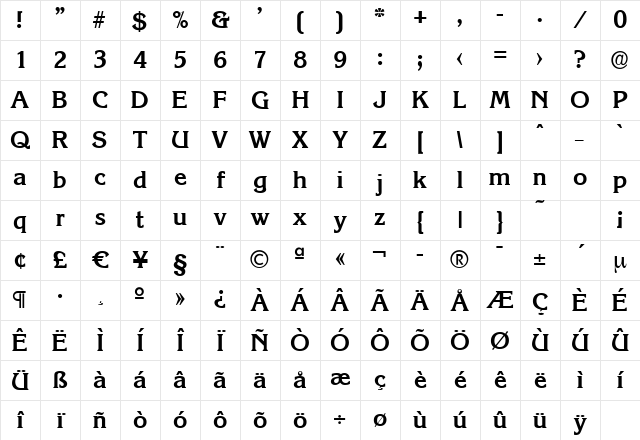
AlanBecker Bold Free Font
AlanBecker Bold
AlanBecker Family
Design Context for AlanBecker
AlanBecker is a composed and adaptable typeface that performs quietly and consistently across a wide range of design contexts. Its bold stroke weight gives it real presence on the page.